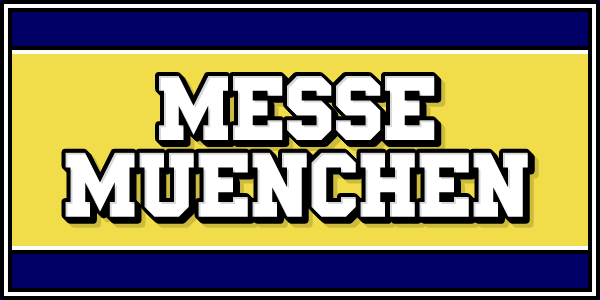
Messe München
Example of the font in use (made with Adobe Fireworks)
This is serif comp. For where serifs are possible, they should be there...
Great font for (American) university clothes, signs etc. "Münchener Messe": a nice way to augment cultural variety in Fontstruct *jaja*  @xBox: serifs are where the designer knows them to be useful> all UC and numbers :)
This would fit a College Sports Team title